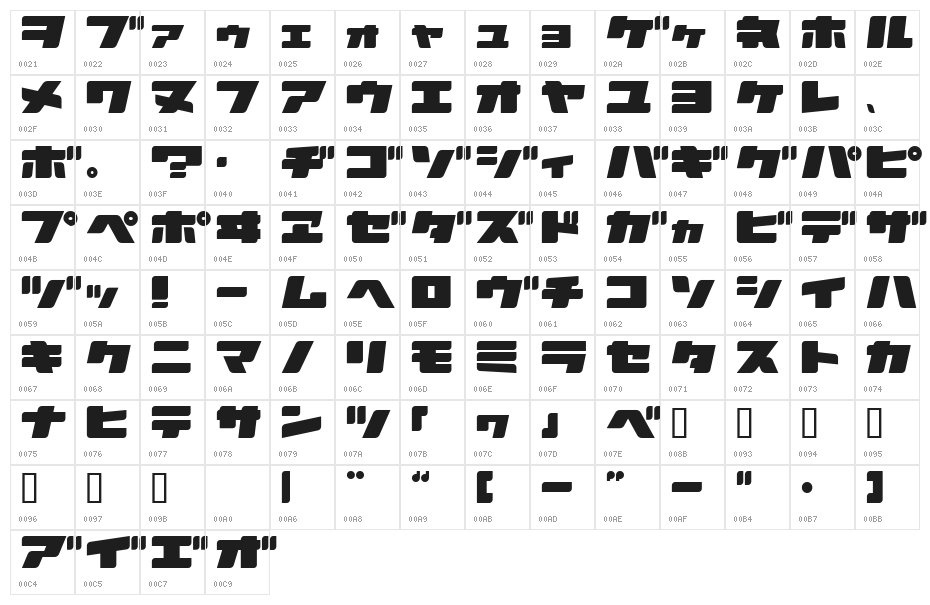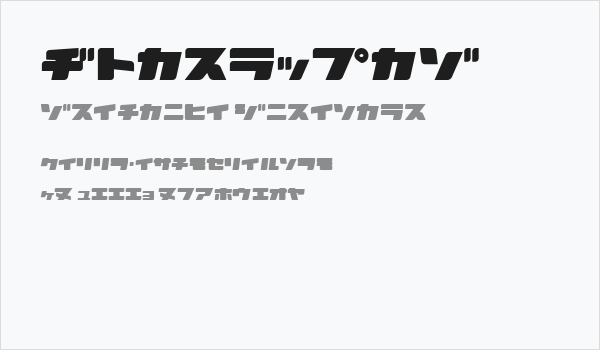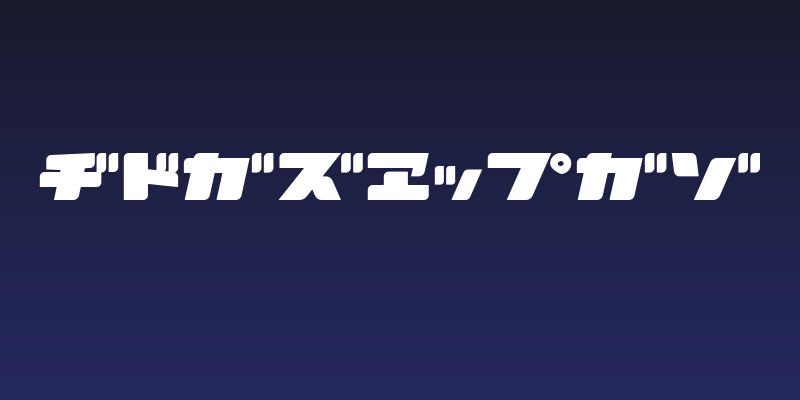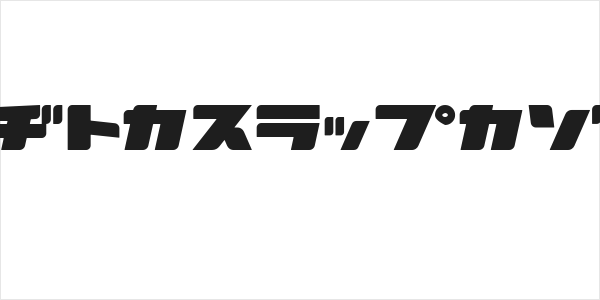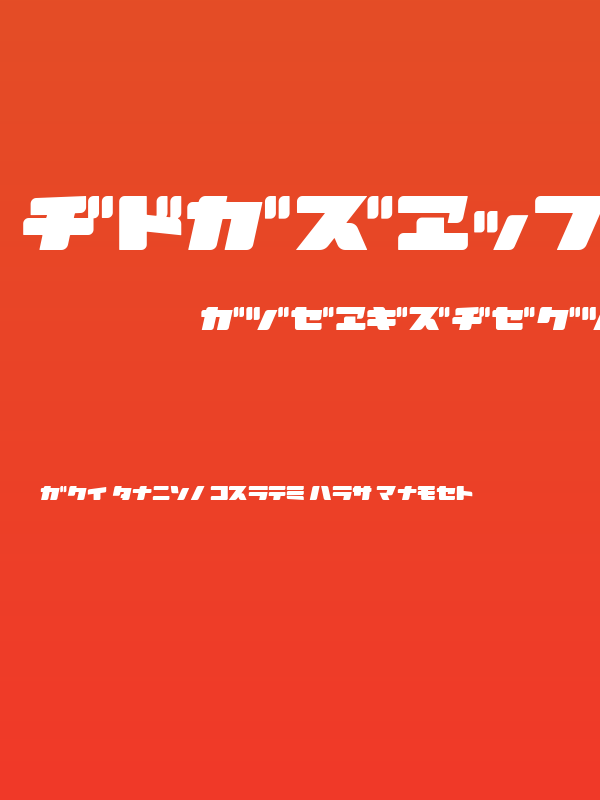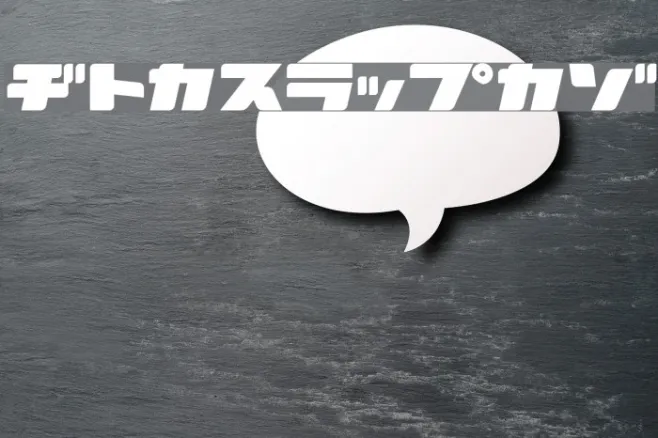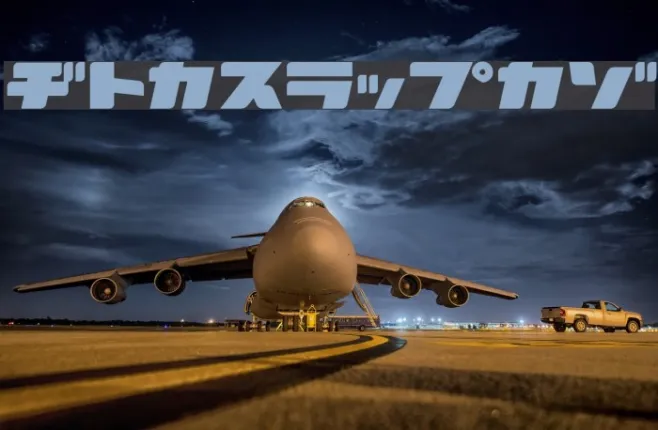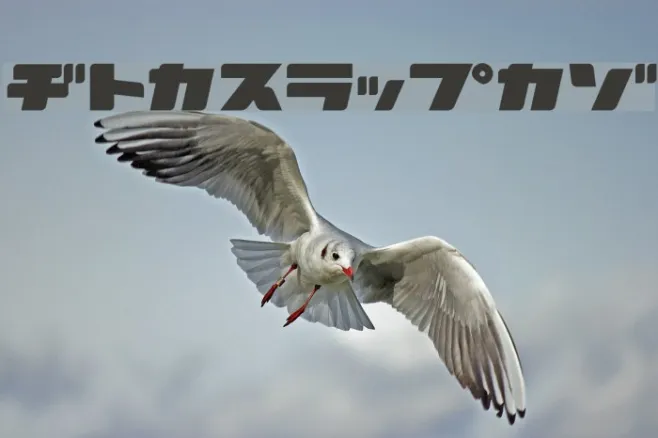
AstroZKtC Font
AstroZKtC Description
This font features bold, geometric shapes with a strong presence, characterized by thick strokes and a blocky appearance. The characters are uniformly wide, giving it a robust and impactful look. The style is reminiscent of retro or vintage designs, yet it maintains a modern edge with its clean lines and sharp angles. The font's design is consistent across all characters, ensuring a cohesive visual experience. Its boldness makes it suitable for attention-grabbing headlines or titles.
| Overall Style | Retro, Modern |
| Proposed Projects | This font is perfect for projects that require a strong visual impact, such as posters, logos, branding materials, and advertising campaigns. Its boldness and clarity make it suitable for both digital and print media. |